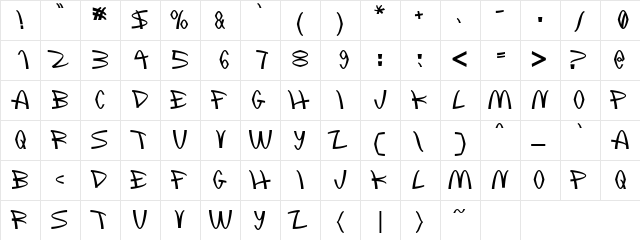
McLawsuit Regular
Design Context for McLawsuit Typeface
McLawsuit is a composed and adaptable typeface that performs quietly and consistently across a wide range of design contexts.